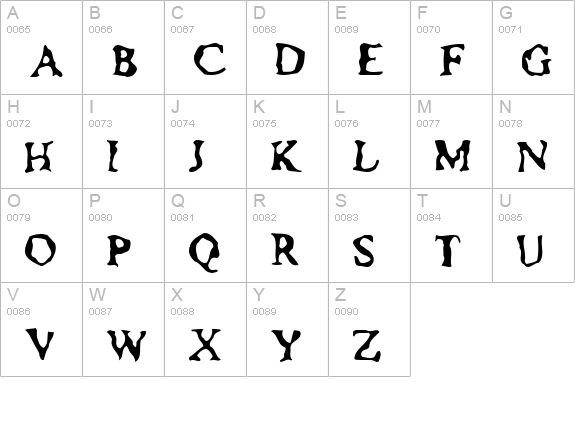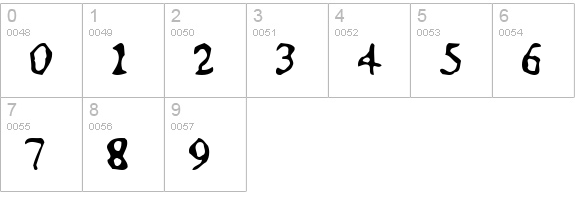
Assimilation Font Details
Assimilation font is a stunning display typeface that seamlessly blends modern aesthetics with a touch of retro charm. Its sleek lines and edgy angles make it perfect for creating bold and eye-catching designs that demand attention. The versatility of Assimilation font allows it to be used for a wide range of projects, from branding and advertising to headlines and posters. What makes Assimilation font even more appealing is that it is completely free to download at FontsMarket.com. This means you can easily access this striking typeface and incorporate it into your creative endeavors without any cost. Don't miss out on this opportunity to enhance your designs with the unique flair of Assimilation font. Download it today and let your creativity shine!